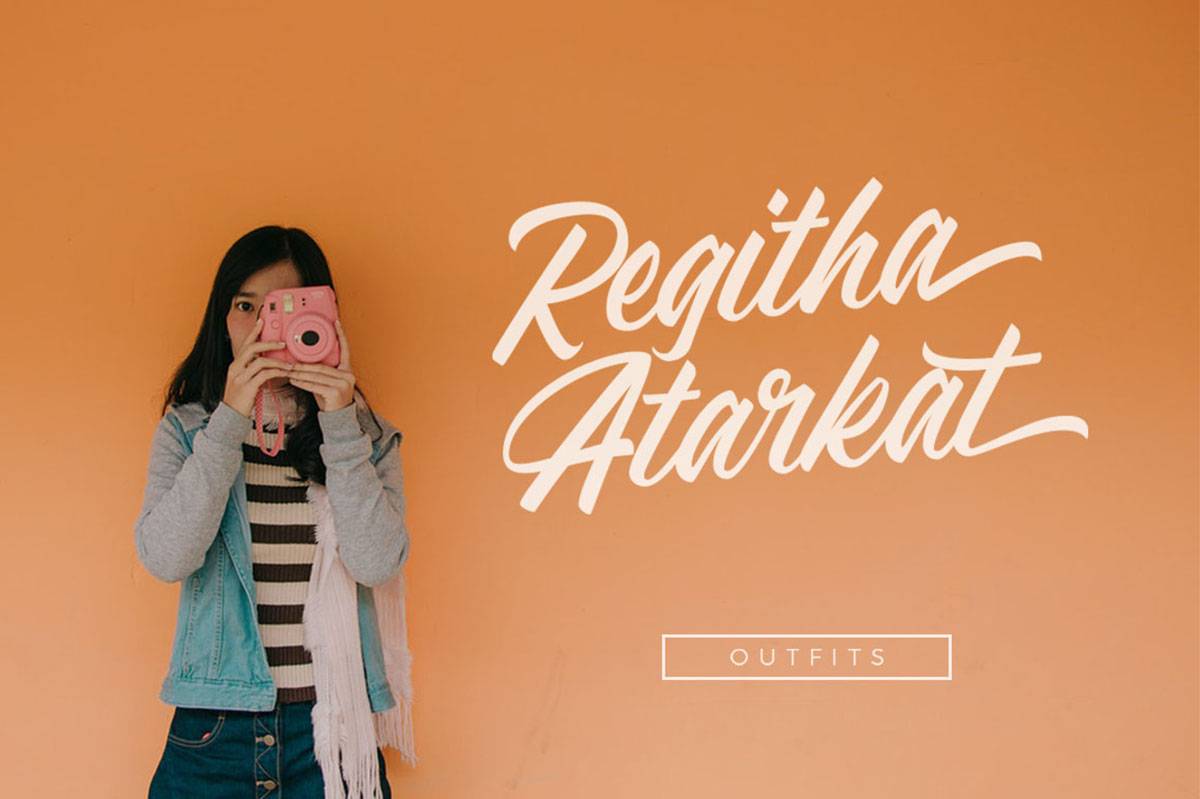
Adelaide Font Demo is a lively, script-style typeface that combines elegant cursive flow with bold, confident strokes. Its medium weight and slightly condensed letterforms convey a sense of personal touch and sophistication, making it an excellent choice for stylish branding, invitations, and expressive headlines where a warm, yet refined personality is desired. This font works well in designs that seek to blend creativity with elegance, adding a dynamic and approachable charm.
Adelaide Font Demo
About Adelaide Font Demo
| Font family | Adelaide Font Demo |
| Designer | Rits Studio |